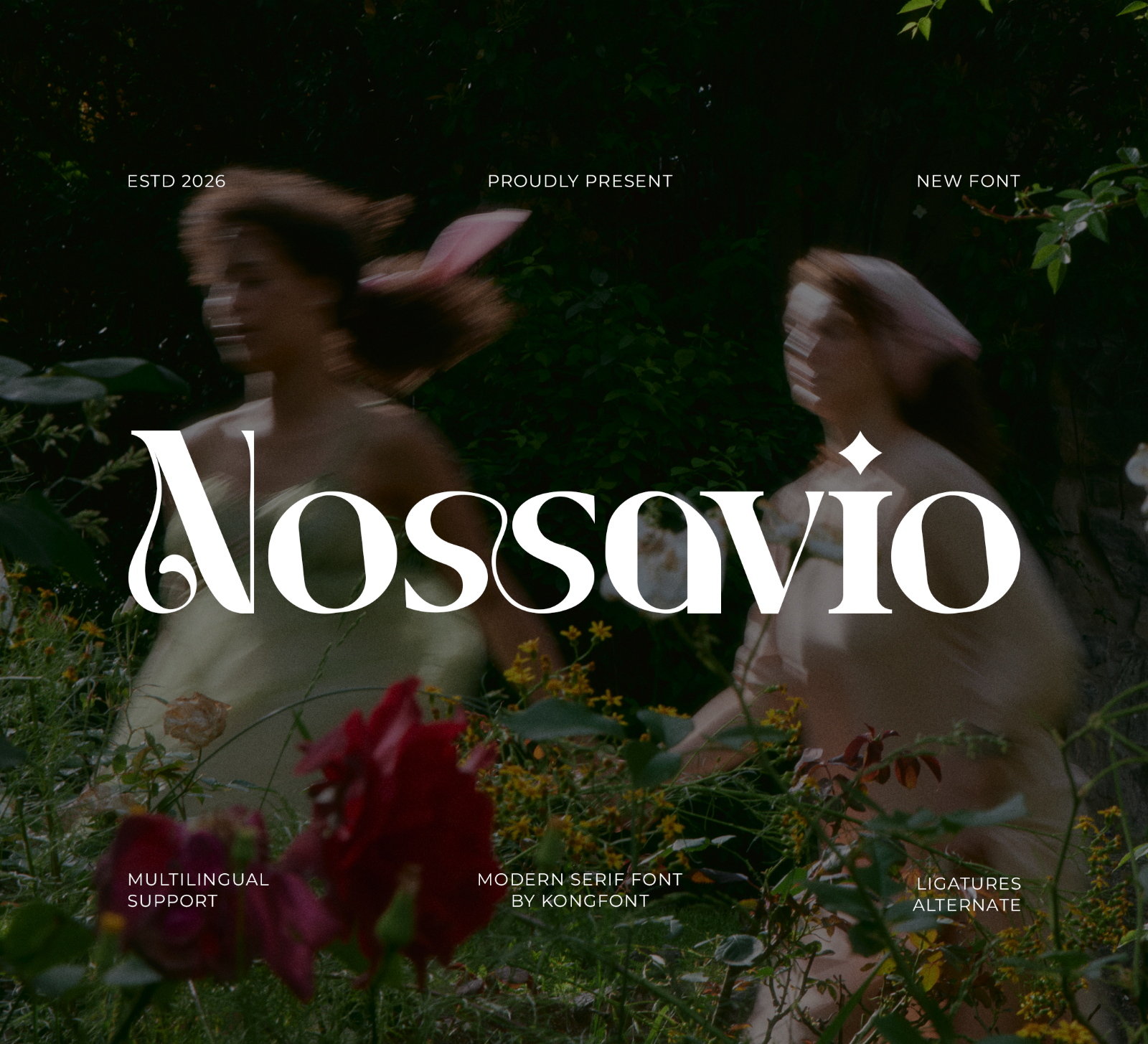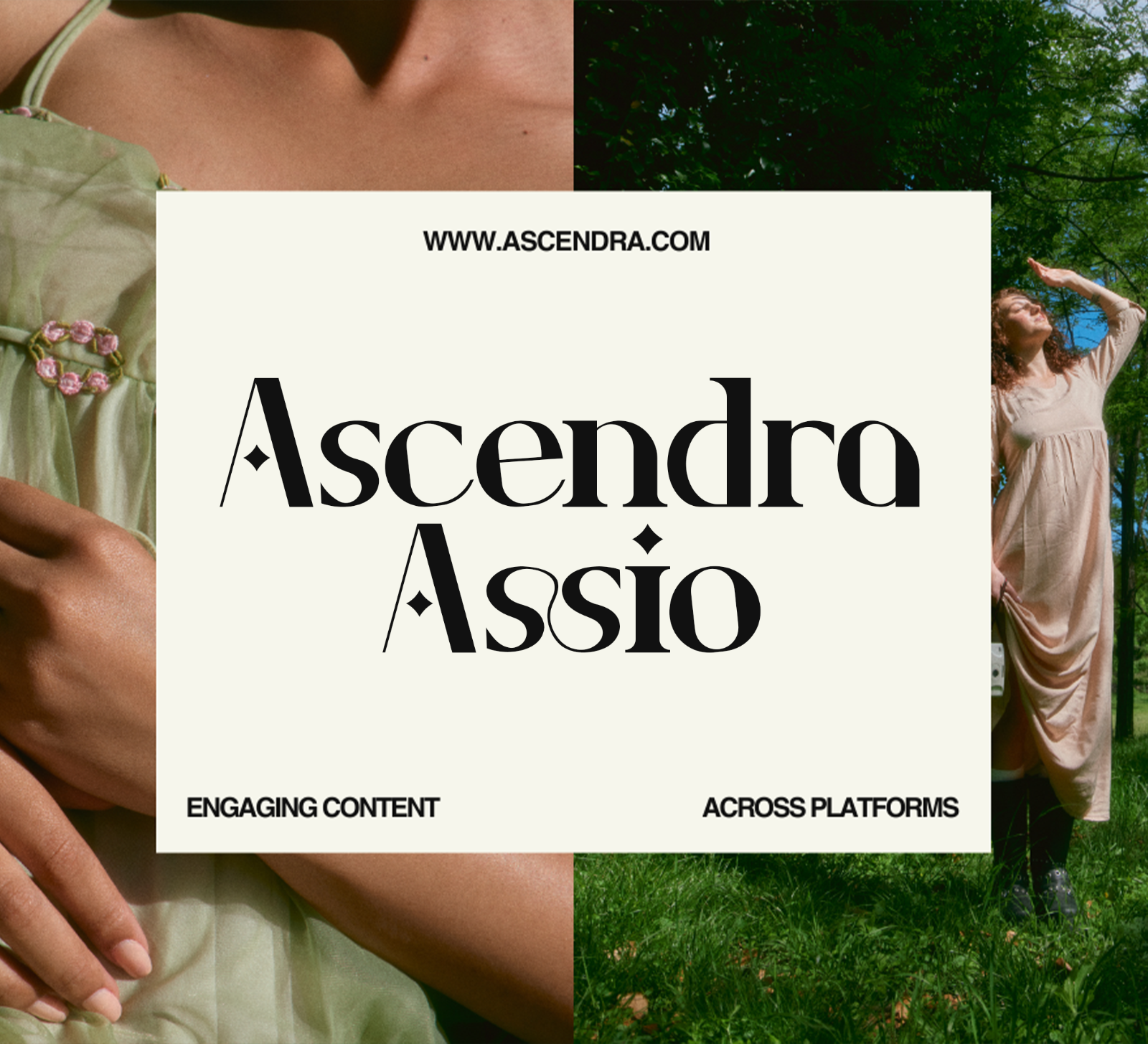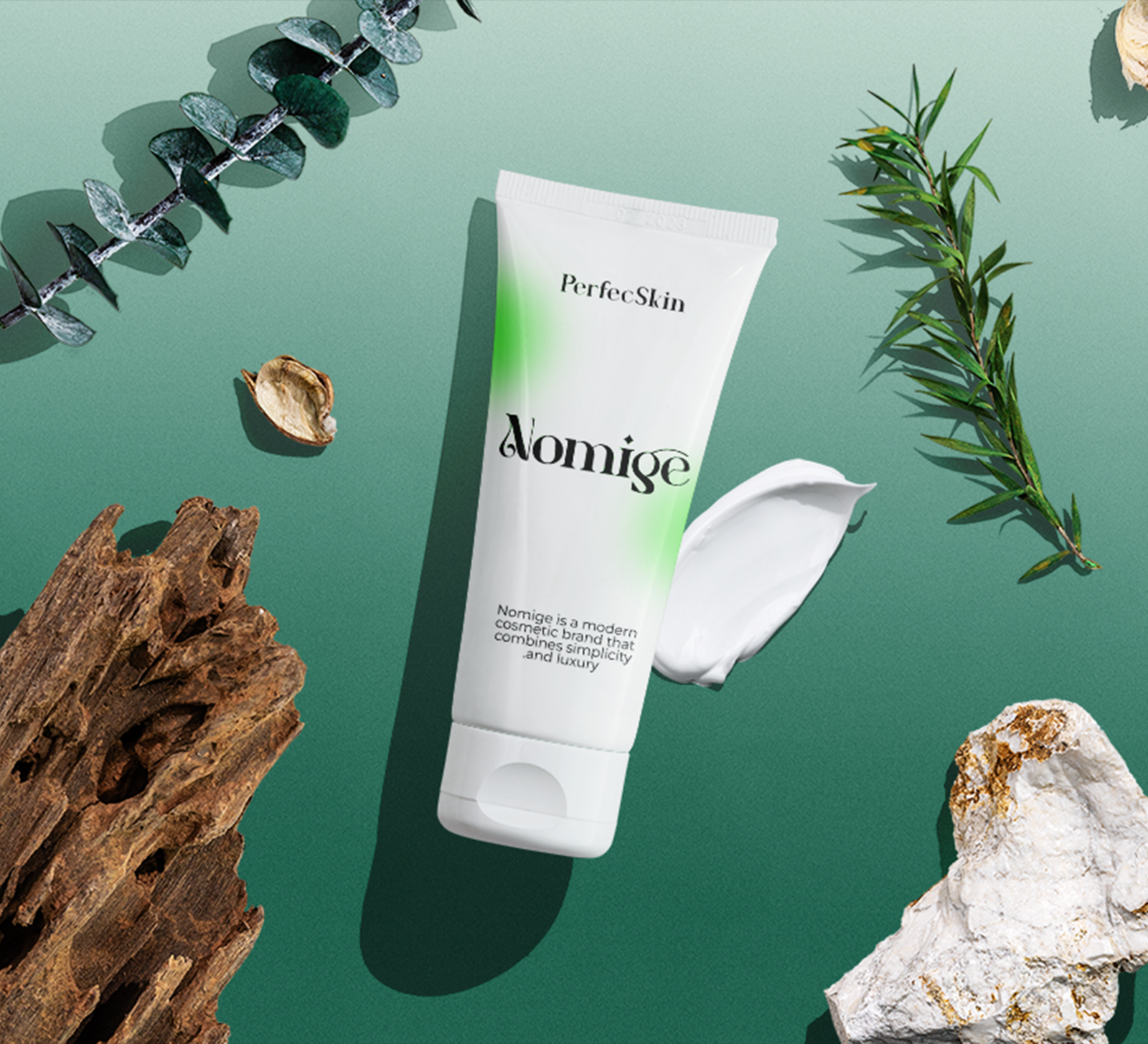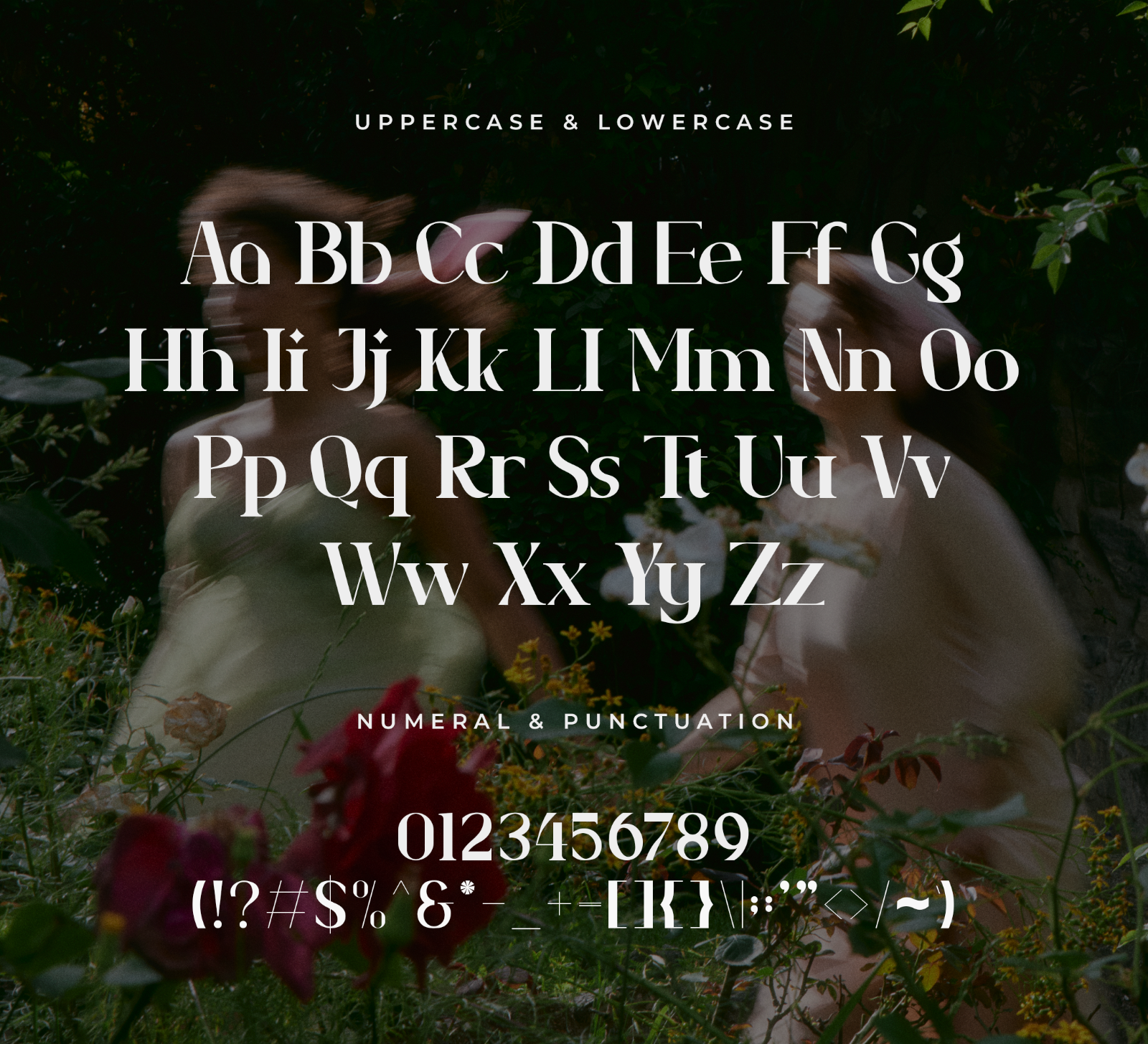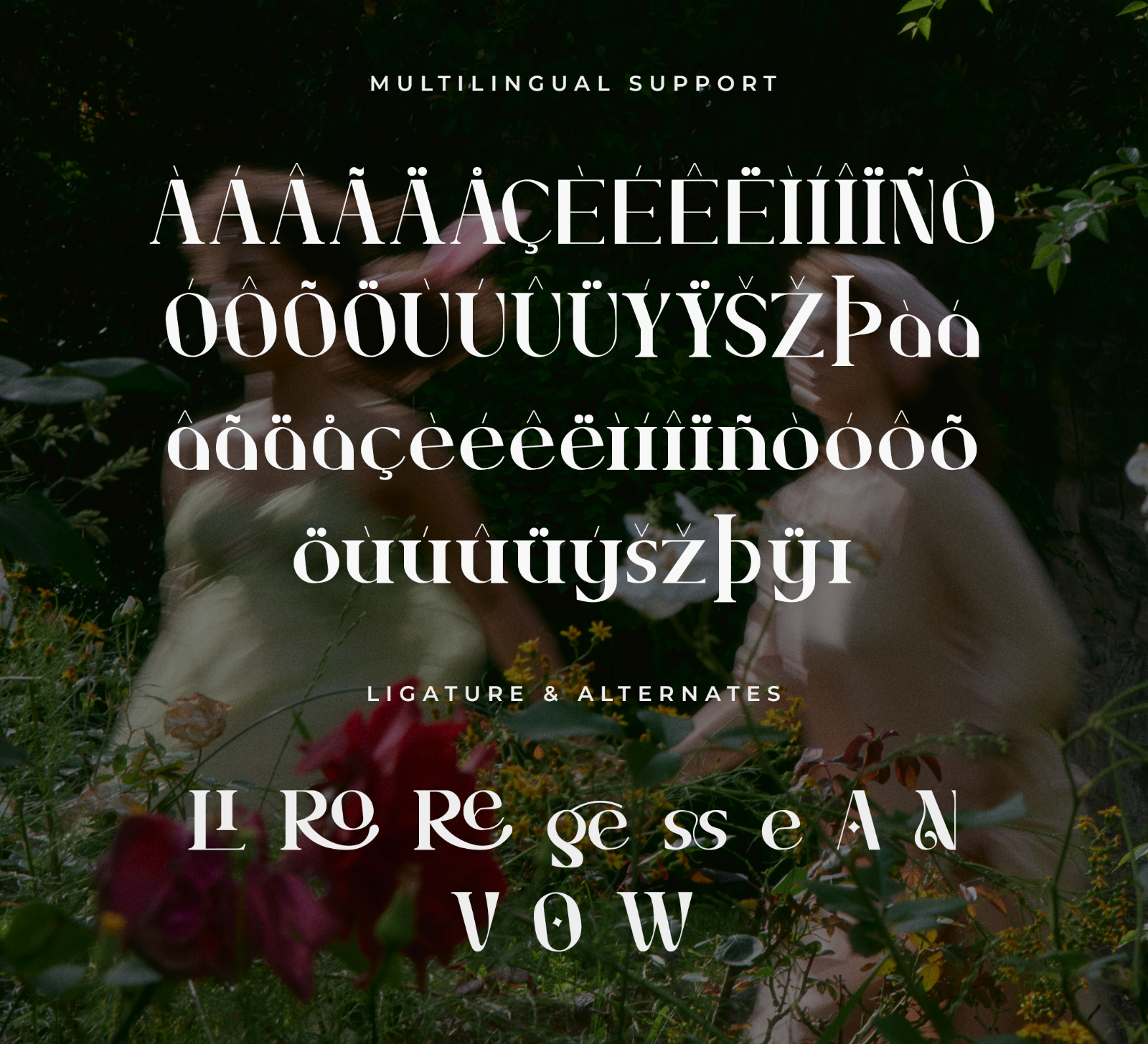
Nossavio is a modern serif font with bold letterforms, smooth curves, and a clean contemporary style. Its refined look makes it a great choice for branding, headlines, and creative designs that need a strong yet elegant personality.
• Branding
• Logos
• Business cards
• Blog headers
• Quotes
• Editorial titles
• Packaging
• Creative typography